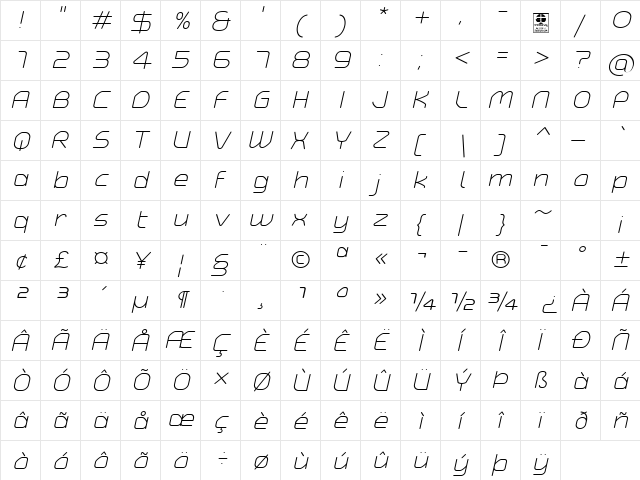
Typo Angular Rounded Light Demo Italic Font Preview
Design Context for Typo Angular Rounded Light Demo Typeface
Typo Angular Rounded Light Demo uses gentle rounded endings to create a warm, inviting typographic personality — less corporate than geometric sans, more refined than playful display fonts. Its italic angle brings a sense of urgency and motion to the letterforms. The delicate stroke weight brings airiness and refinement to layouts.
Well-suited to UI design, mobile interfaces, and any brand that wants approachability without sacrificing clarity.
Font Pairing: Pairs well with a rounded or humanist sans for body copy, maintaining the friendly tone without relying on Typo Angular Rounded Light Demo to carry extended reading.
Pro Tip: Use Typo Angular Rounded Light Demo for UI elements, app interfaces, and anywhere a friendly, approachable tone needs to be maintained without sacrificing clarity.